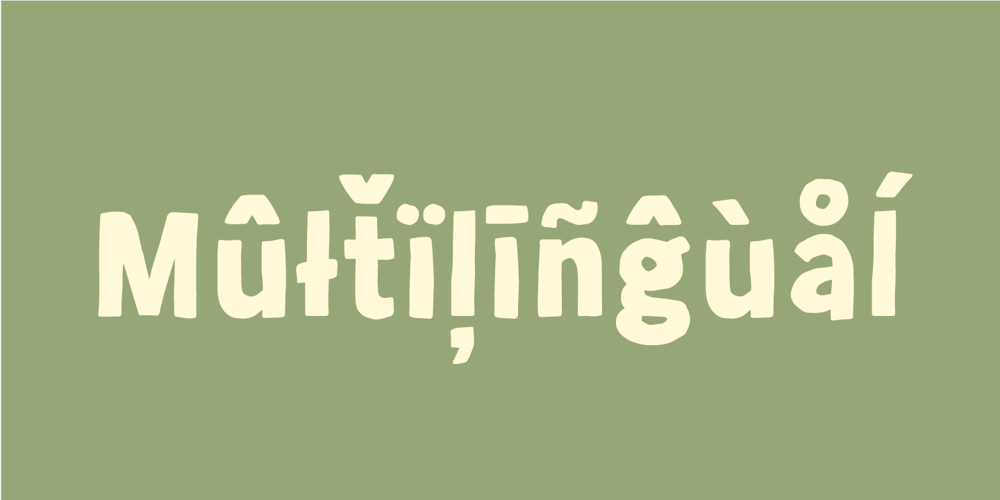
Same Old Joke Font Family was designed by Jakob Fischer and published by Bogstav. Same Old Joke contains 3 styles and family package options. Same Old Joke is a happy and handmade font. Use it for anything that needs a hand lettered expression. Works well with prints, cards, packaging or perhaps even a poster of your favourite chocolate! Each version of the font is full of personality, and was carefully handdrawn to keep both the legibility and the handmade feeling. I put in ligatures to substitute the most common letter repeating – to make it look even more handmade!